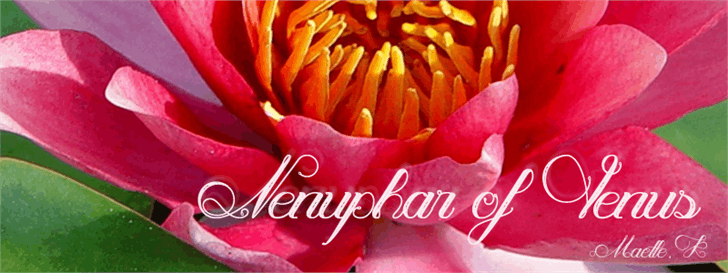
Free Nenuphar of Venus Font
We're glad to feature this beautiful free nenuphar of venus font. This font file was found from the amazing source called Font Space. This is absolutely fancy font so you can easily make world-class designs.